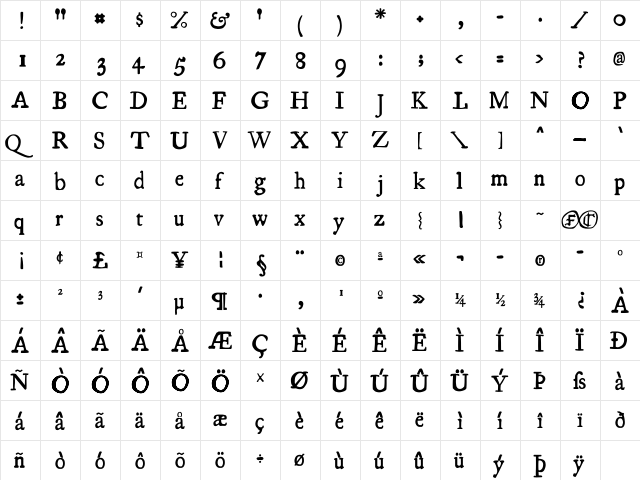
Essays1743 Medium Font Preview
Essays1743 Medium
Essays1743 Medium Font Details
| Designer | Based on the typeface in a 1743 English translation of the essays of Montaigne. PostScript/TrueType font designed by John Stracke. |
Design Context for Essays1743 Typeface
Essays1743 is a composed and adaptable typeface that performs quietly and consistently across a wide range of design contexts.